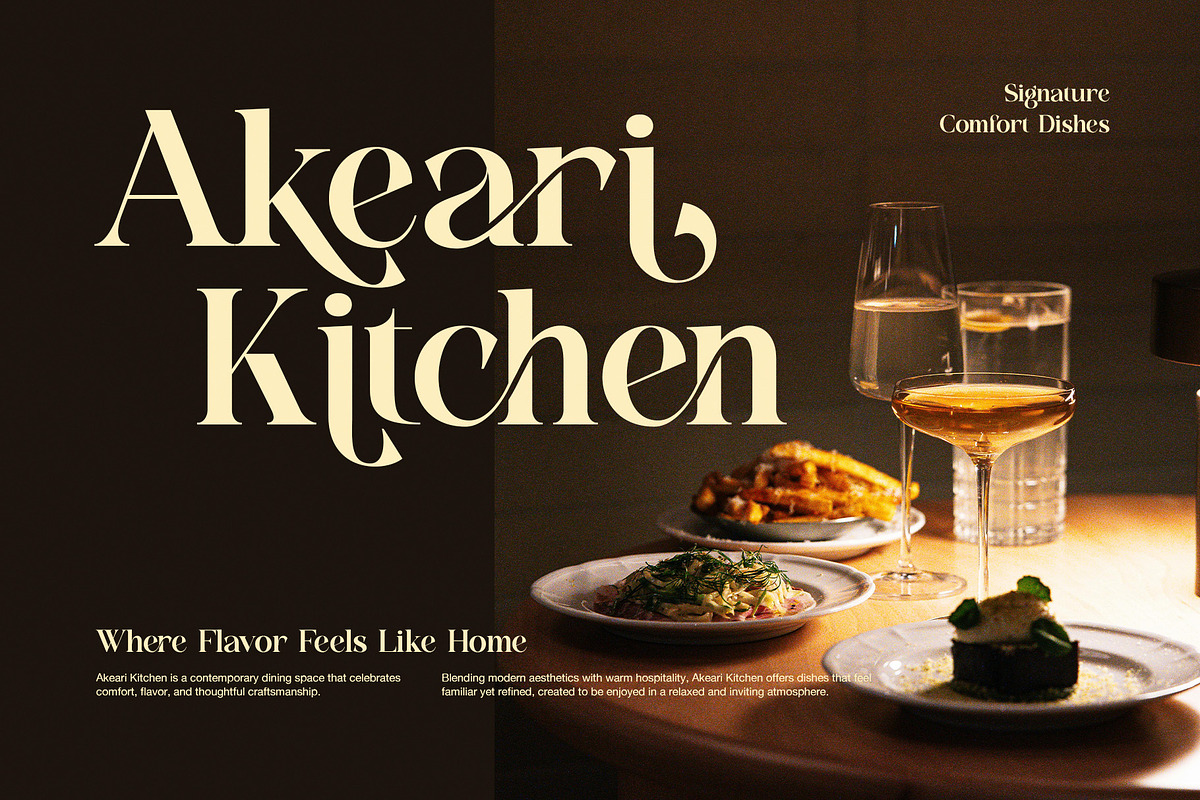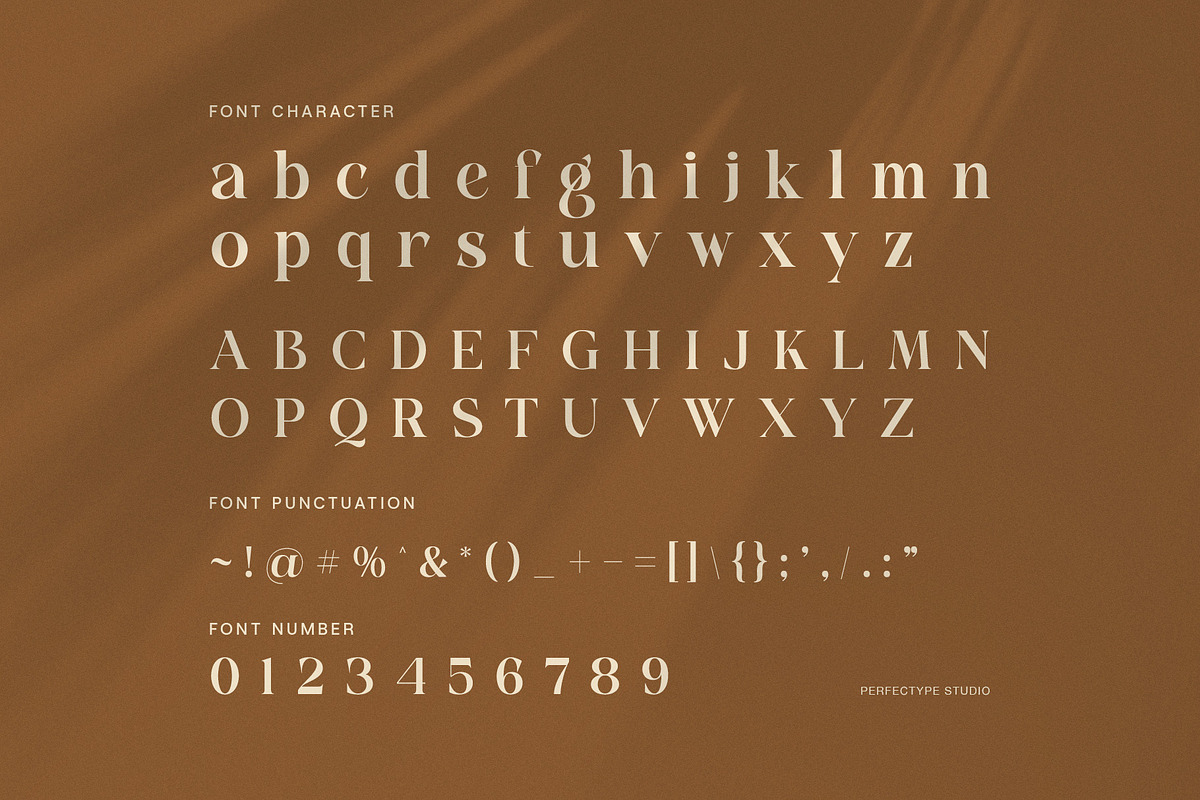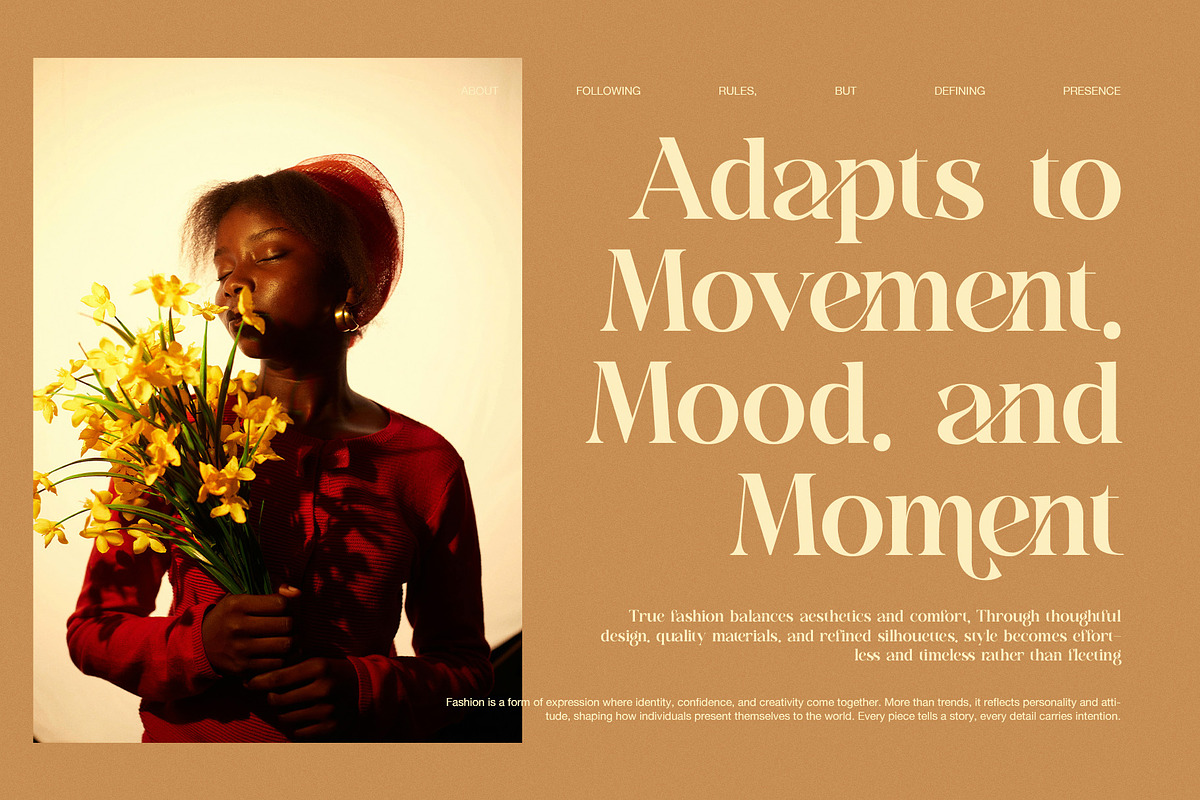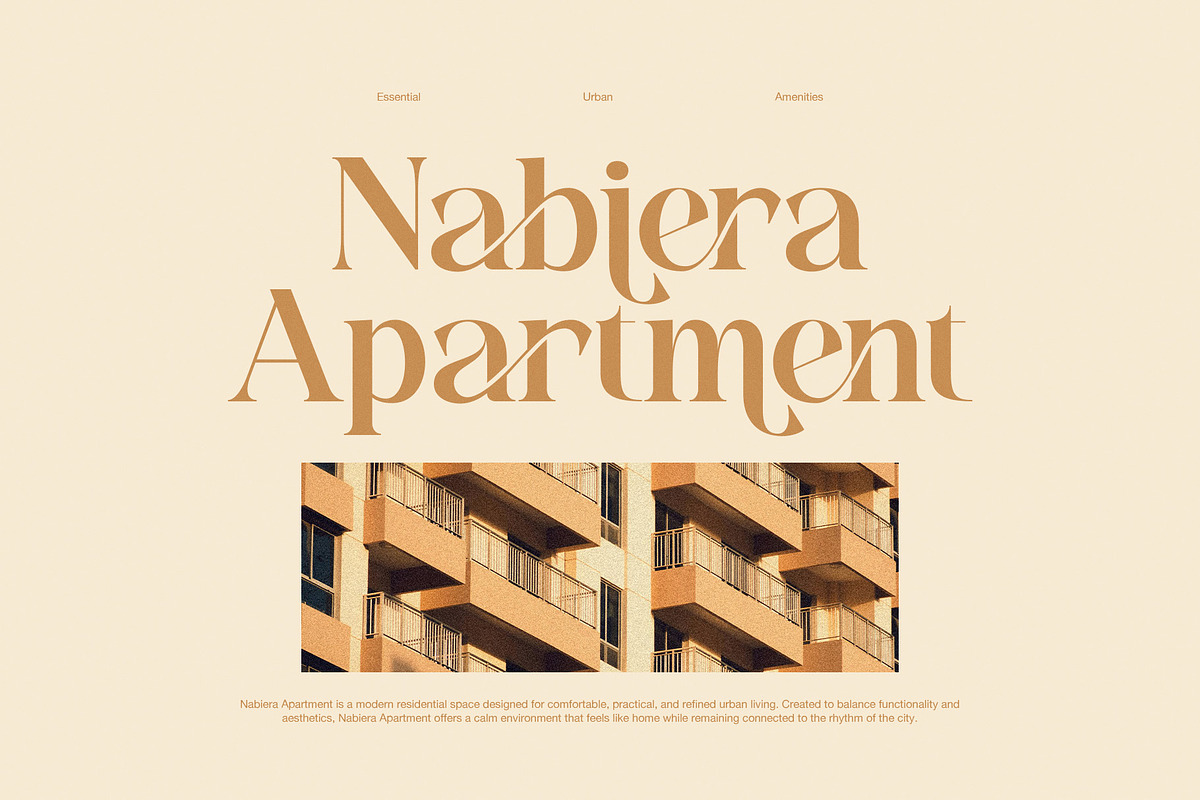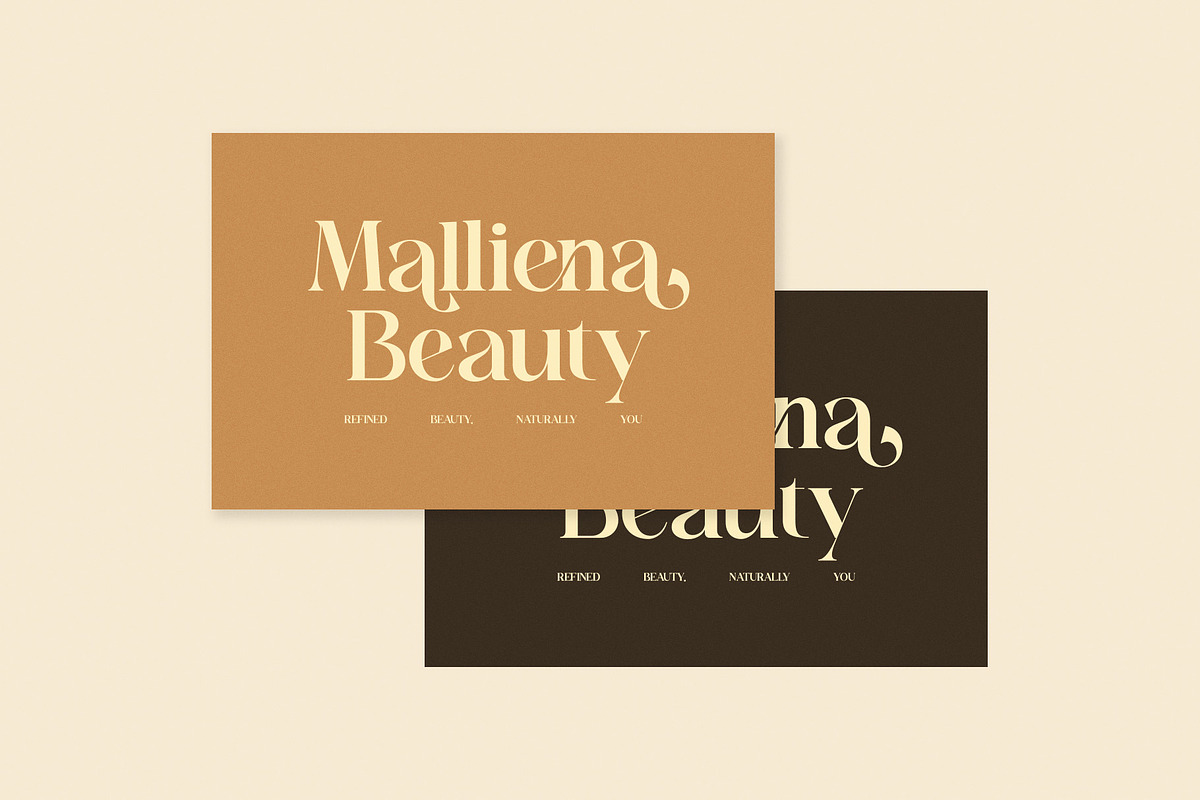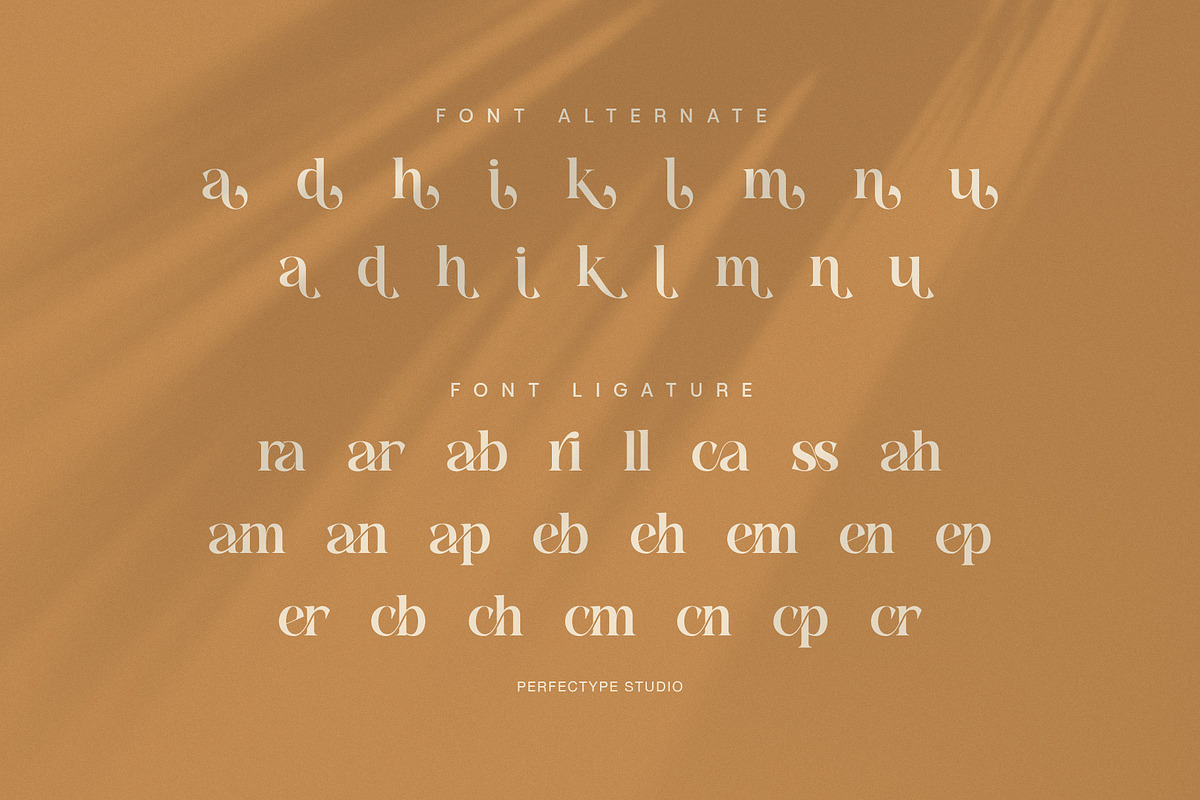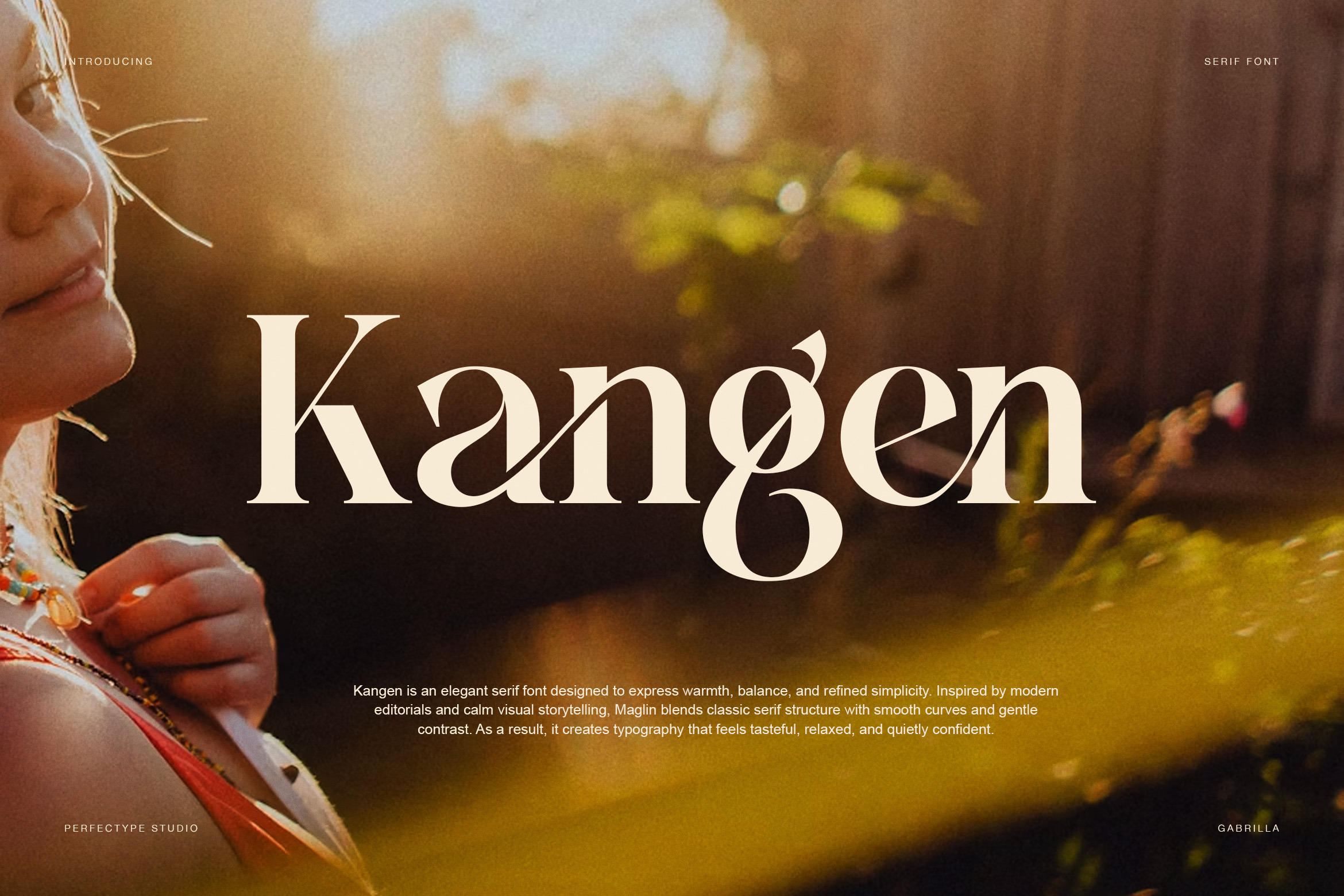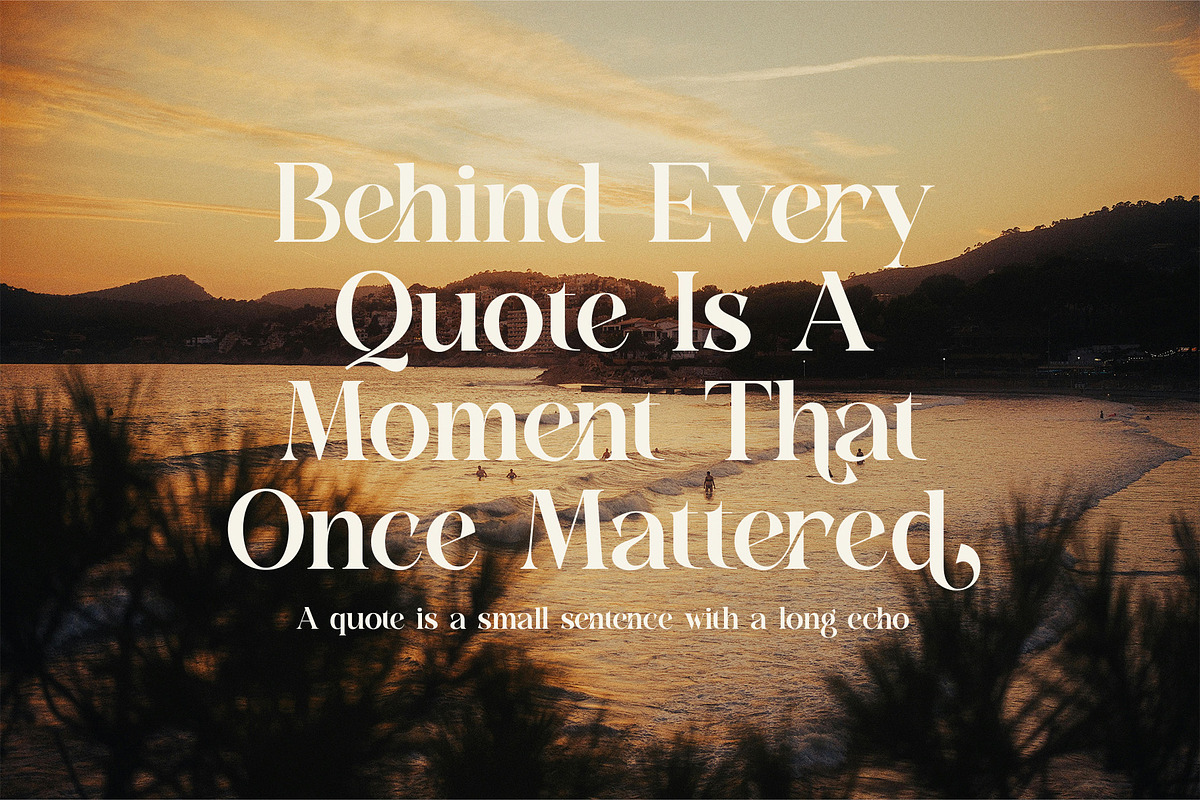
Kangen Elegant Modern Serif Font
Kangen is an elegant modern serif font created to express warmth, balance, and refined simplicity. From the first impression, this font feels calm, natural, and quietly confident. Therefore, it is ideal for designers who value subtle beauty and clear visual storytelling.
Kangen blends classic serif foundations with smooth curves and gentle contrast. As a result, each letterform feels soft yet structured. The strokes appear relaxed, while the proportions remain clean and modern. Moreover, the rounded details create a welcoming tone that works well across many creative styles.
Because Kangen is highly readable, it performs well in both display text and short body content. In addition, the spacing is carefully adjusted to support clarity in print and digital formats. This balance allows designers to use the font with confidence in professional layouts.
Kangen also includes refined alternates and elegant ligatures. These features help designers create natural flow and visual harmony. Furthermore, the alternates add character without overpowering the design. As a result, each project feels intentional and thoughtfully crafted.
Another advantage of Kangen is its versatility. While it feels warm and organic, it also remains polished and professional. Therefore, it suits editorial layouts, lifestyle branding, restaurants, fashion visuals, and modern interior concepts. At the same time, it works beautifully for quotes, posters, and calm promotional designs.
Kangen pairs easily with clean sans-serif fonts. Consequently, designers can build strong hierarchy without visual clutter. In addition, the font maintains its elegance at larger sizes, making it perfect for hero titles and featured headlines.
Key Design Characteristics
Elegant modern serif style
Soft curves with gentle contrast
Calm and balanced letter shapes
Clear readability for print and screen
Timeless and versatile appearance
Ideal Use Cases
Branding and logo design
Editorial and magazine layouts
Lifestyle and interior projects
Restaurant and café visuals
Quotes, posters, and headlines
Overall, Kangen is a modern serif font that delivers warmth, clarity, and timeless appeal. It supports storytelling, enhances atmosphere, and elevates visual identity with ease.